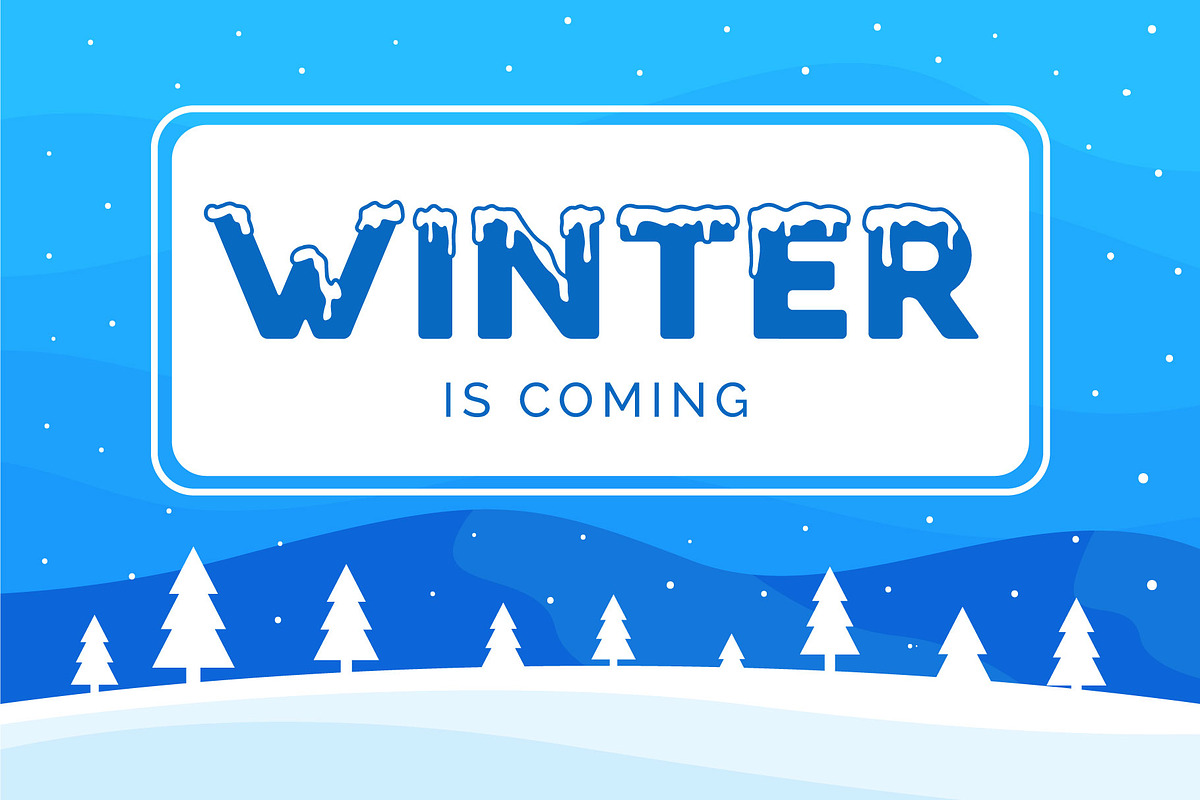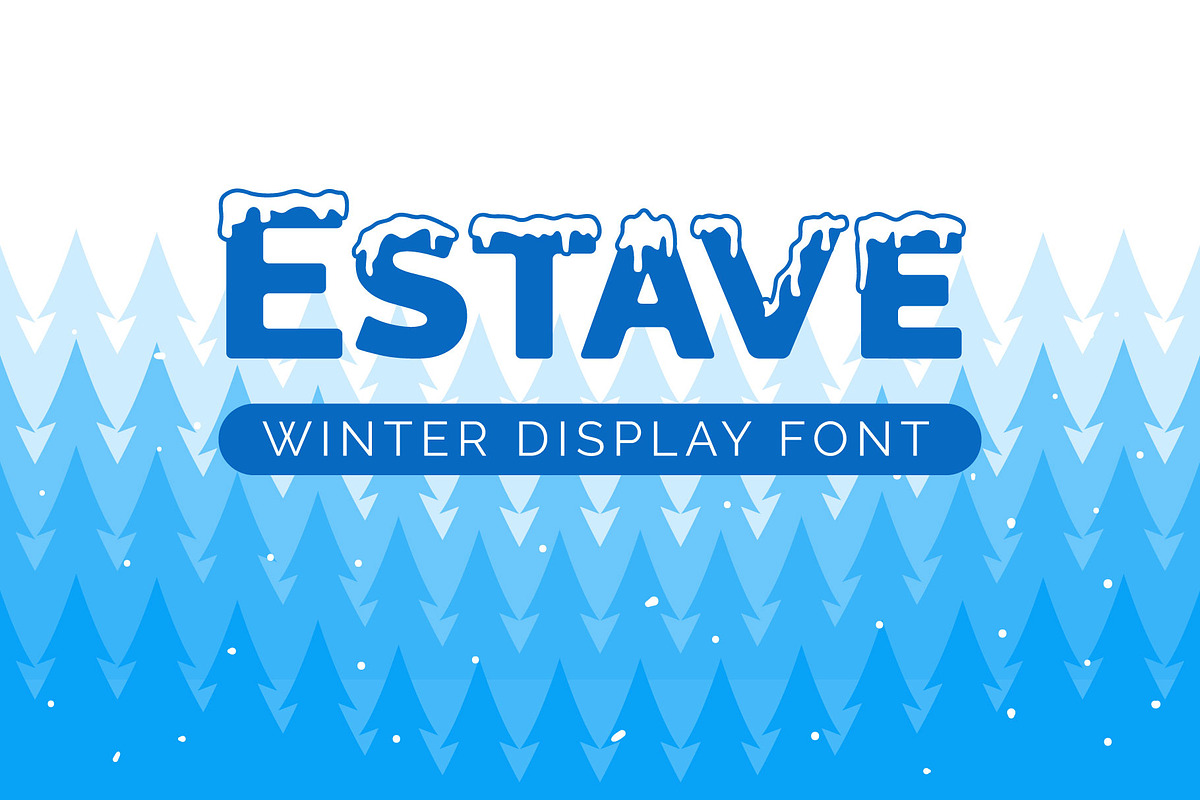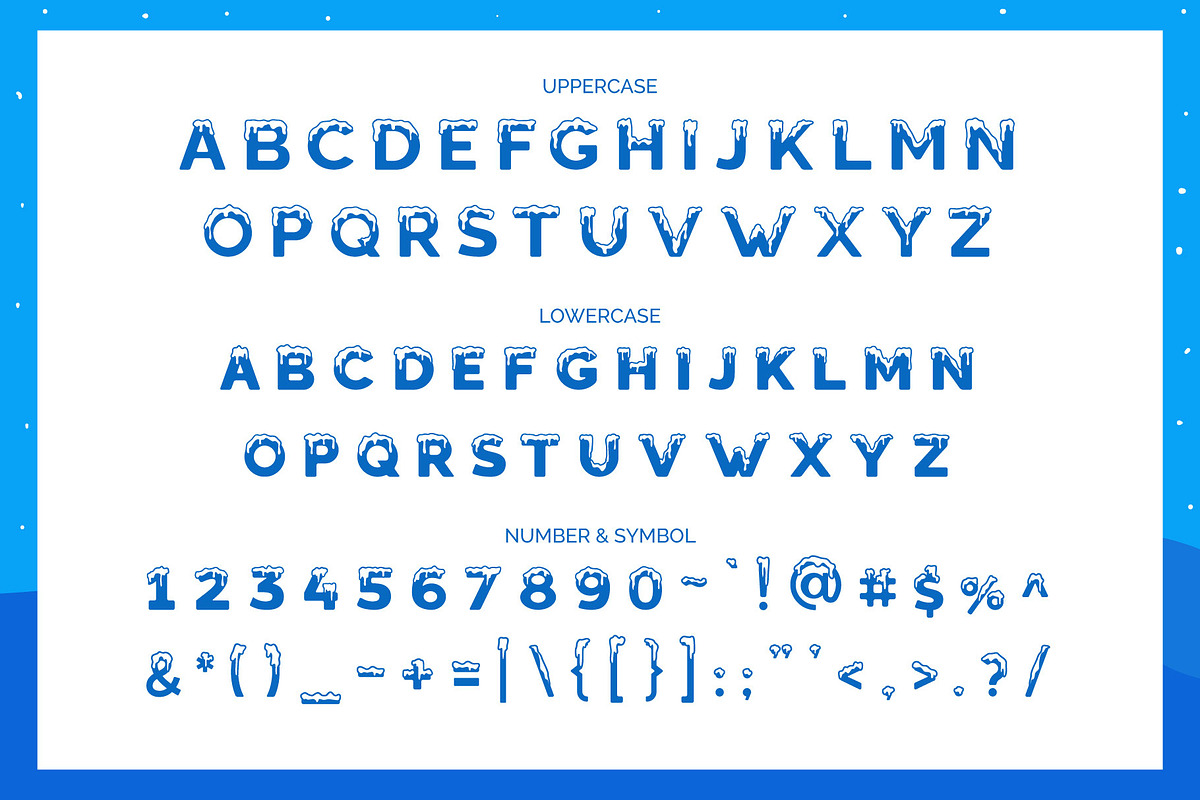
Estave - Winter display font
Winter is coming! ESTAVE font comes to make your winter more cool. A bold, strong character makes your title or headline more elegant. The snow ornament in the top of the font brings winter ambiance more strong. Happy writing! :-)
Estave - Winter display font by Mightyfire fits naturally into Branding, posters, packaging, typography.